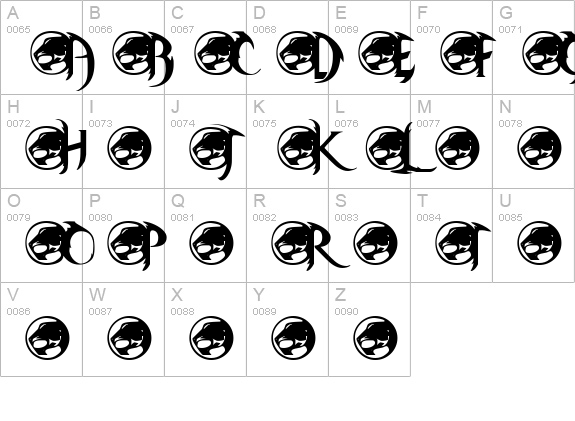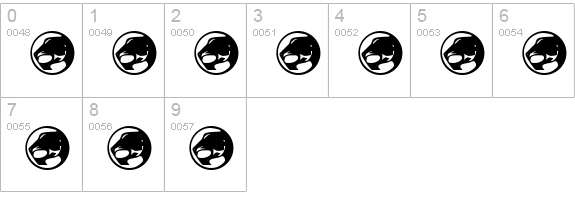
ThunderCaps Font Details
Introducing ThunderCaps, a captivating and dynamic font that will electrify your designs with its powerful presence. This font is designed to make a bold statement, commanding attention and leaving a lasting impression. With ThunderCaps, every letter is carefully crafted to exude a sense of energy and strength. The sharp edges and bold strokes create a striking visual impact, making it perfect for headlines, logos, and any design that needs a touch of thunderous excitement. Not only does ThunderCaps deliver unparalleled visual impact, but it also offers the freedom of expression. This font allows you to explore your creativity and push the boundaries of design, giving you the tools to unleash your imagination and create truly remarkable works of art. And the best part? ThunderCaps is available for free! Yes, you read that right. This incredible font can be freely downloaded at FontsMarket.com, where you can access a vast library of high-quality fonts for all your design needs. So why wait? Take your designs to the next level with ThunderCaps. Download it now and experience the power of this electrifying font. Let ThunderCaps be the thunderbolt that ignites your creativity and sets your designs apart from the rest.